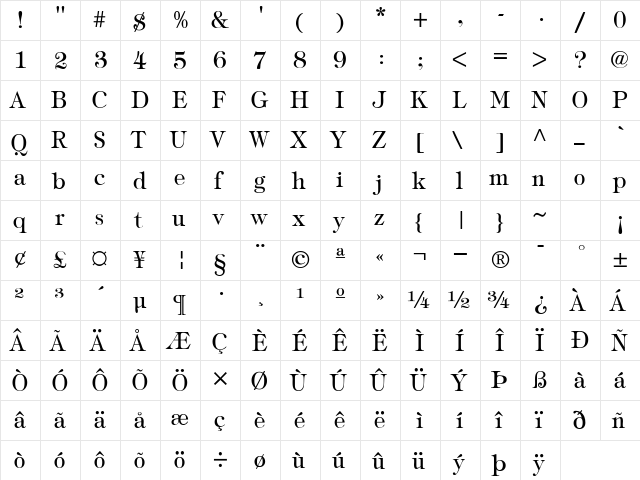
AlbrechtSSK Regular
Design Context for AlbrechtSSK Typeface
AlbrechtSSK takes a measured approach to typography — its balanced proportions and neutral character make it a reliable workhorse for both digital and print work.